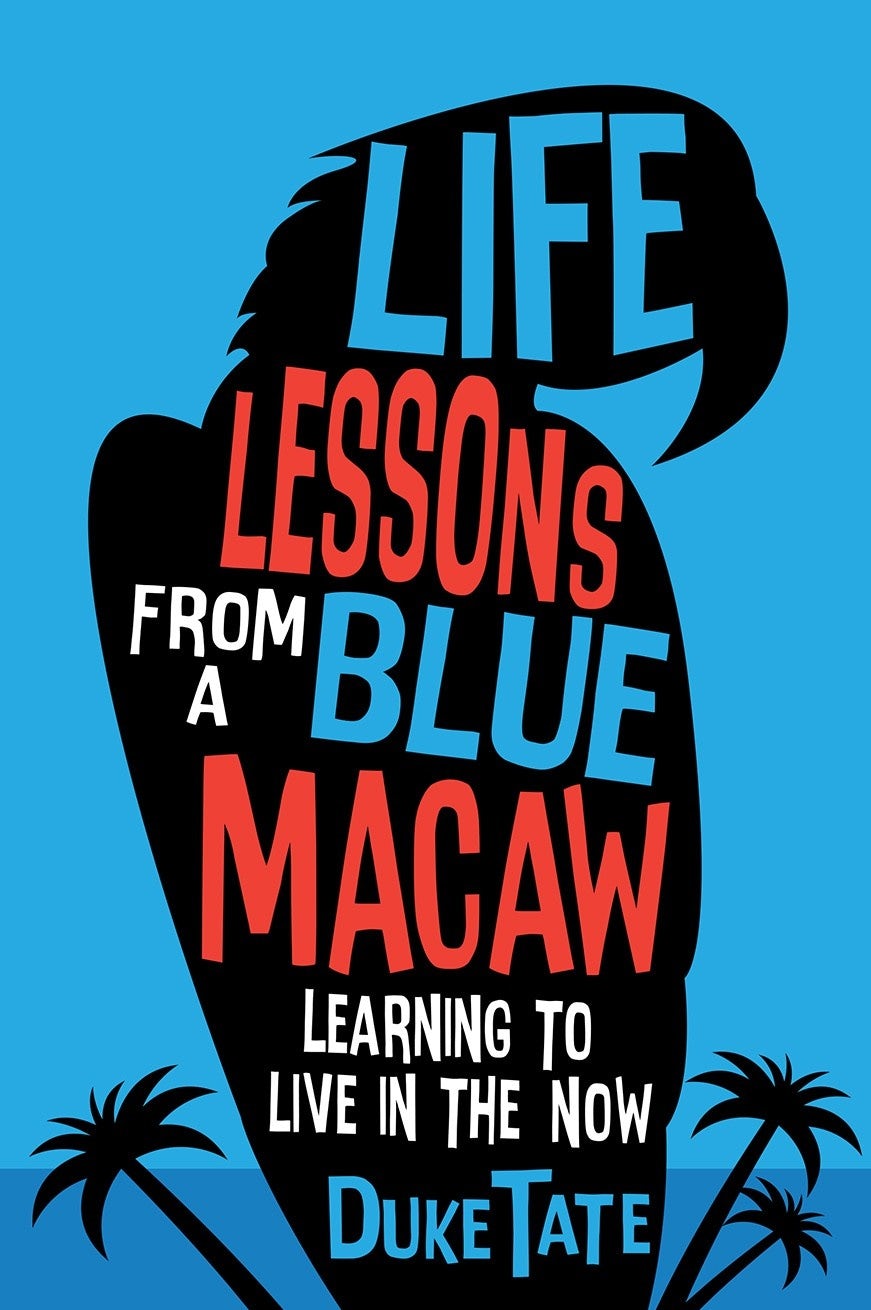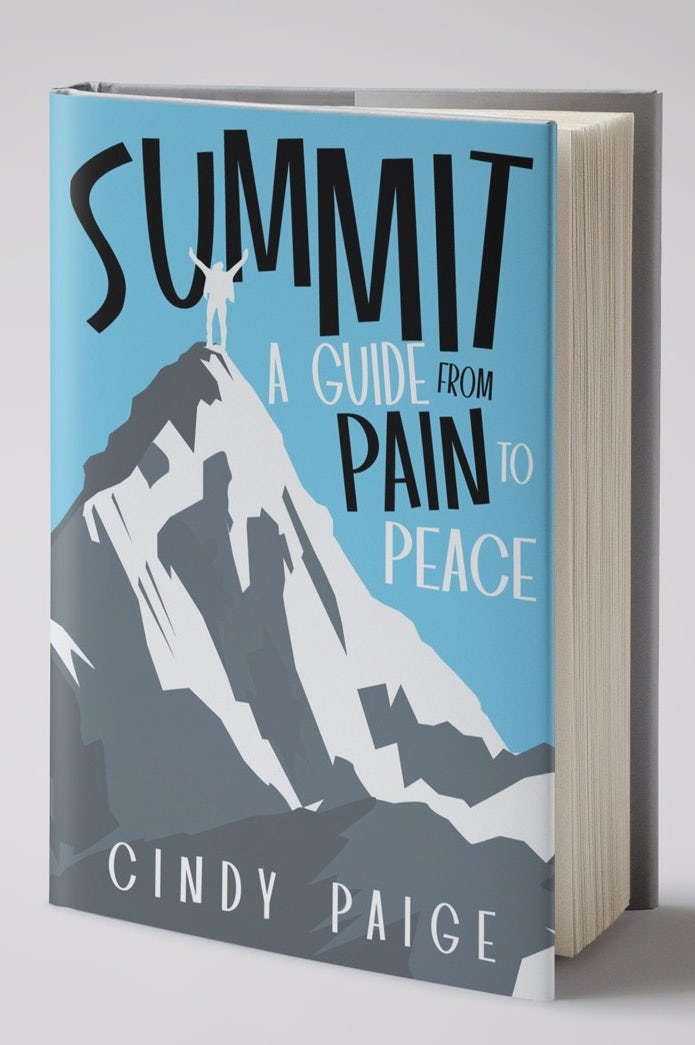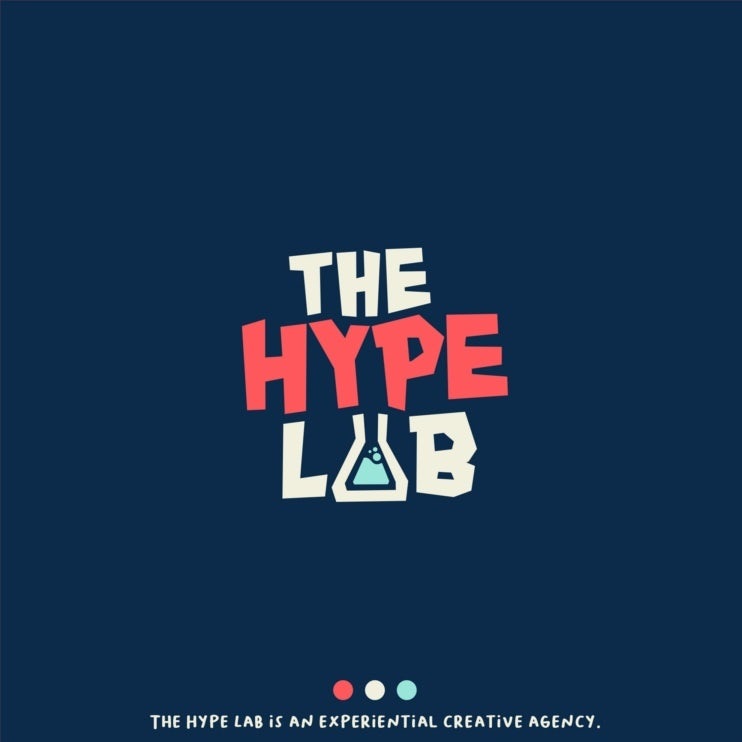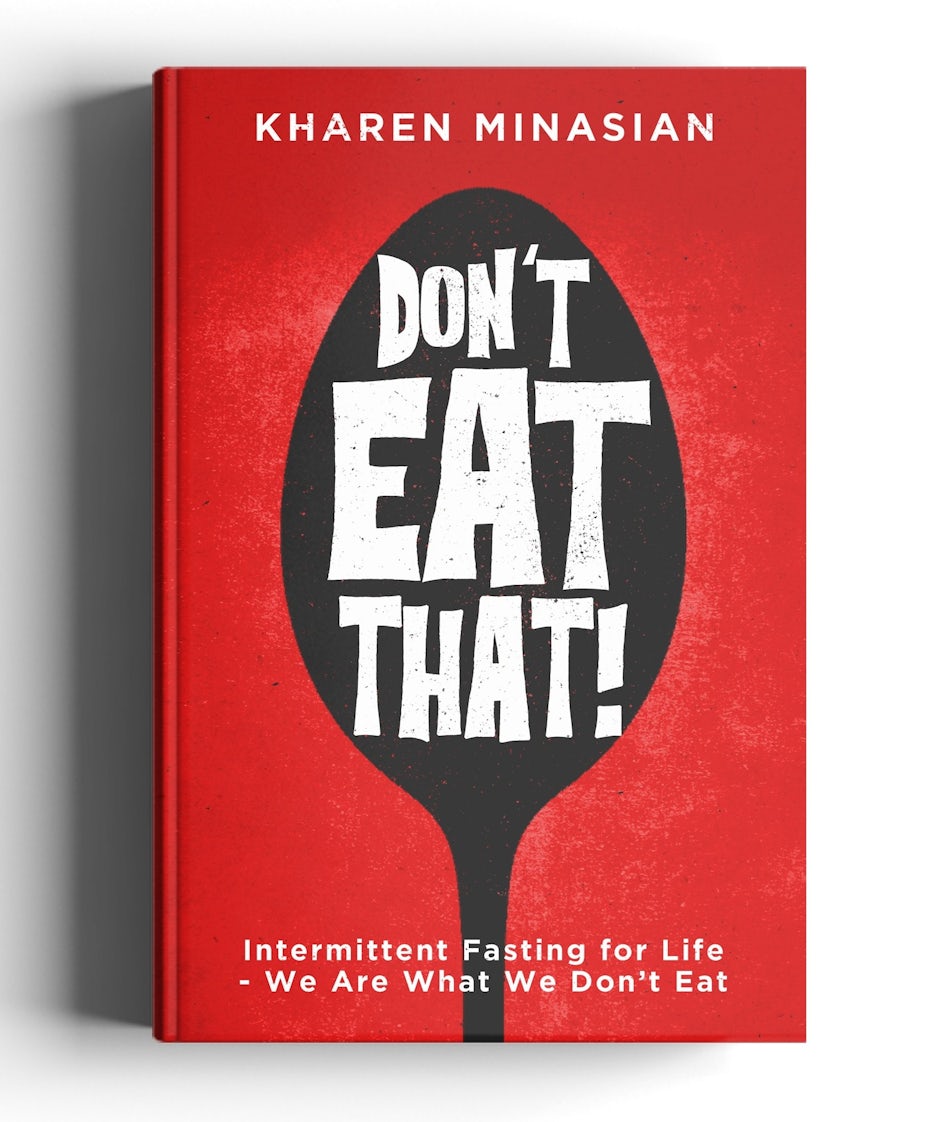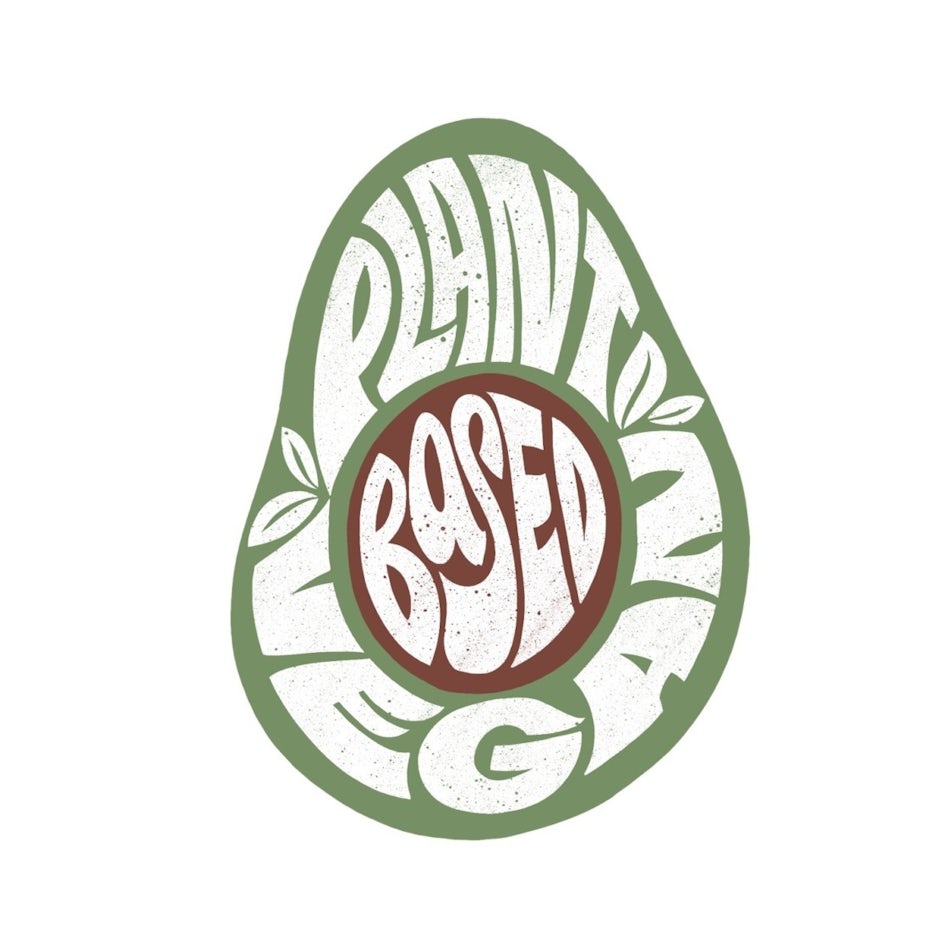
The top 8 font trends for 2021 are:
- Alternating baselines
- Disco revival
- Dynamic lettering
- Extra sharp angles
- Standout letters
- Solid shadows
- Typewriter font evolved
- Rounded block fonts
1. Alternating baselines
All caps text is useful for more than just shouting matches on the internet. In crucial contexts such as titles and brand names, it is often necessary. It makes words feel more important and grownup, but all caps lettering also comes with a price.
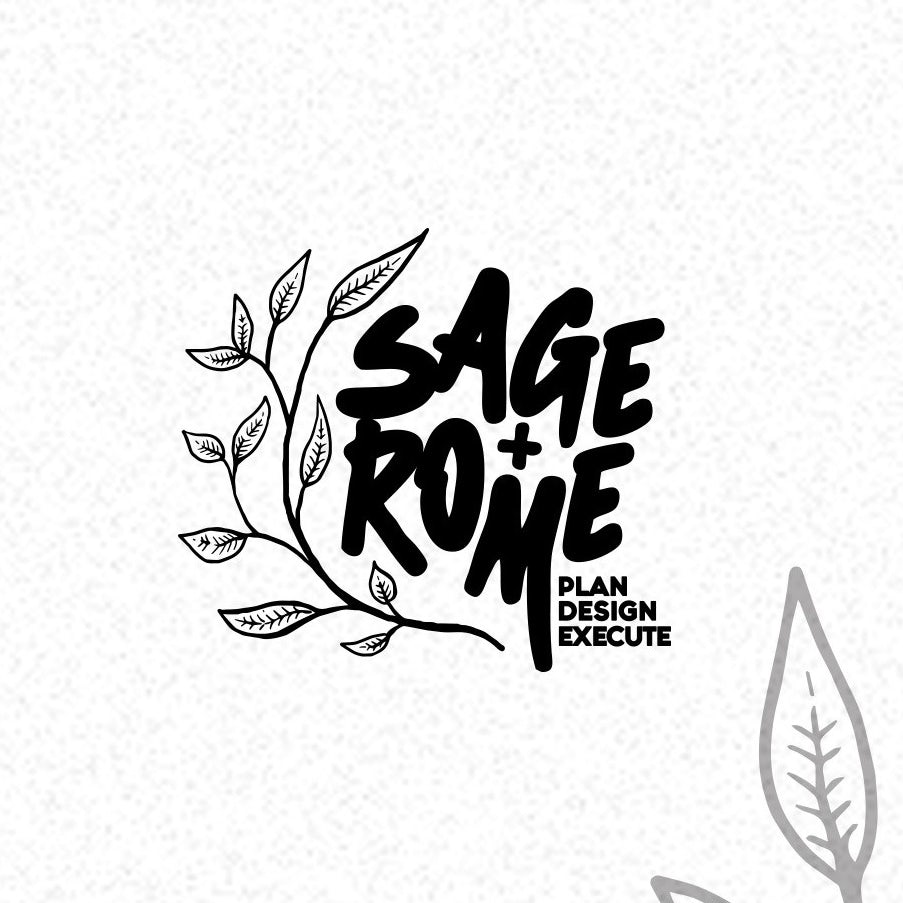
From a design perspective, capitalized words tend to form a boxy shape, which can read as less visually interesting than the height variation provided by lowercase forms. But by taking advantage of uneven sizing, font designers are writing outside the box in 2021.
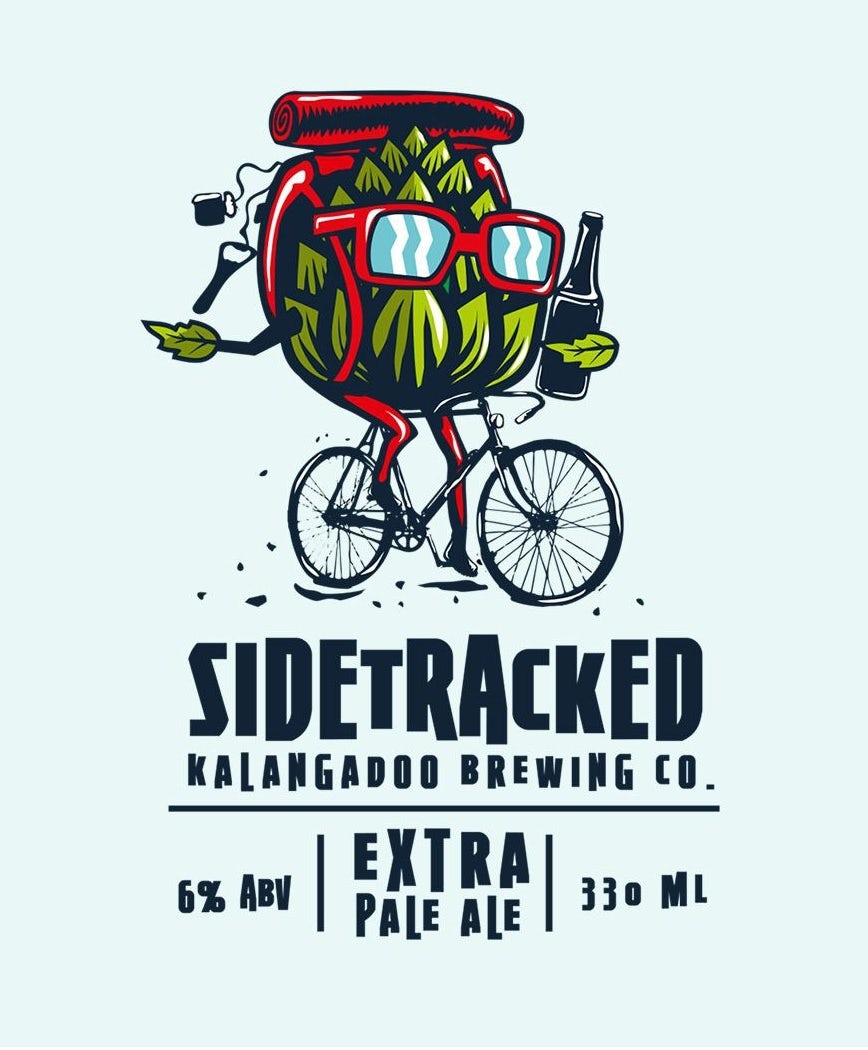
This trend alternates the cap height and baselines of capitalized letters in order to create variety. Designers can also intensify this by changing the thickness between letters and even tilting their axes. The result is letterforms that are full of surprises while maintaining the uniform emphasis of capitalization.
2. Disco revival
If we see the past through rose colored lenses, we see the 70s through rainbow colored ones. The 70s in our collective memory feels like a decade-long party. We imagine the shimmer of disco balls, the strut of platform shoes, and the time-honored dad dance: The Lawnmower. Likewise, 70s style typefaces remain popular for all the festive vibes they convey.
The resurgence of disco fonts comes in the form of multicolored type, thick curves and psychedelic effects. These are typefaces which demand a double take, and they will be the font of choice for groovy themes in 2021.
3. Dynamic lettering
Writers and typographers around the world have always known that words have a life of their own, but this is becoming a tangible reality through 2021’s trend of dynamic lettering. Dynamic letters create the illusion of movement using fluid shapes, textured shading, and action lines—like a mid-motion snapshot.
This trend is an analogue compliment to last year’s kinetic type, reminding us technology was never a necessity for moving art. Dynamic lettering can not only transition well into real animation, it will trick you into thinking it already has. The tradeoff is that dynamic type is more difficult to read, but designers whose projects involve illustrative hand-lettering and large, singular words might easily find themselves swept along with the movement of this trend.
4. Extra sharp angles
Ralph Waldo Emerson famously said, “Words are alive. Cut them and they bleed,” but nobody expected words to cut back. Many fonts in 2021, however, are being designed to accentuate their sharpest edges, proving the old adage that the pen is mightier than the sword.
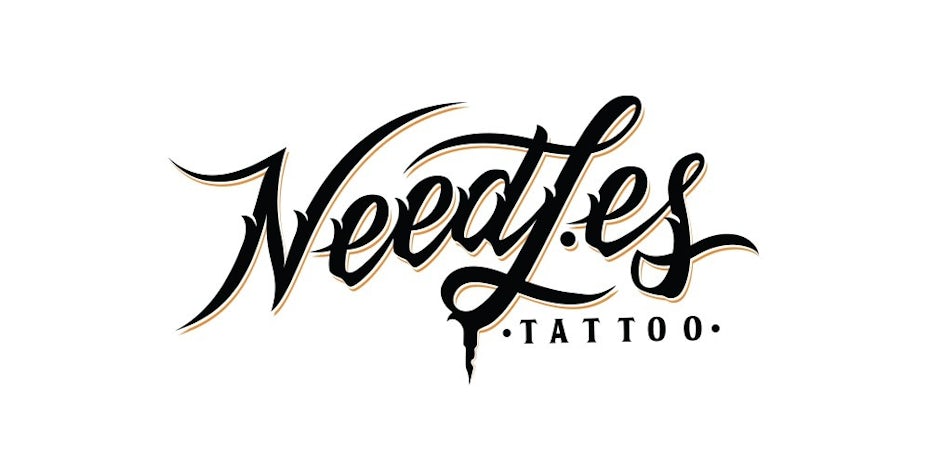
Aside from being notable for the easy attention their extreme angles invite, these are fonts with a literal edge. They feel rebellious and pair well with dark colors and devilish concepts. If your brand is bound for the dark side, you’ll want to make sure you bring something sharp.
5. Standout letters
For better or worse, fonts are designed to fade to the background. While this may come across as dull, it’s what allows letters to read well, putting the meaning of the words ahead of the designer’s ego. Typically, fonts achieve this through a predictably uniform style, but in 2021, many designers are creating wordmarks with individual letters that stand out from the rest.
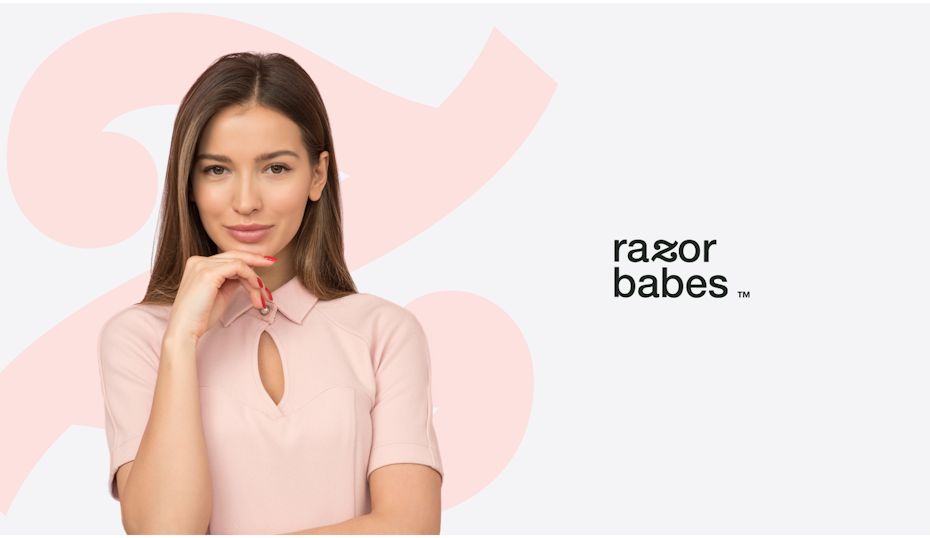
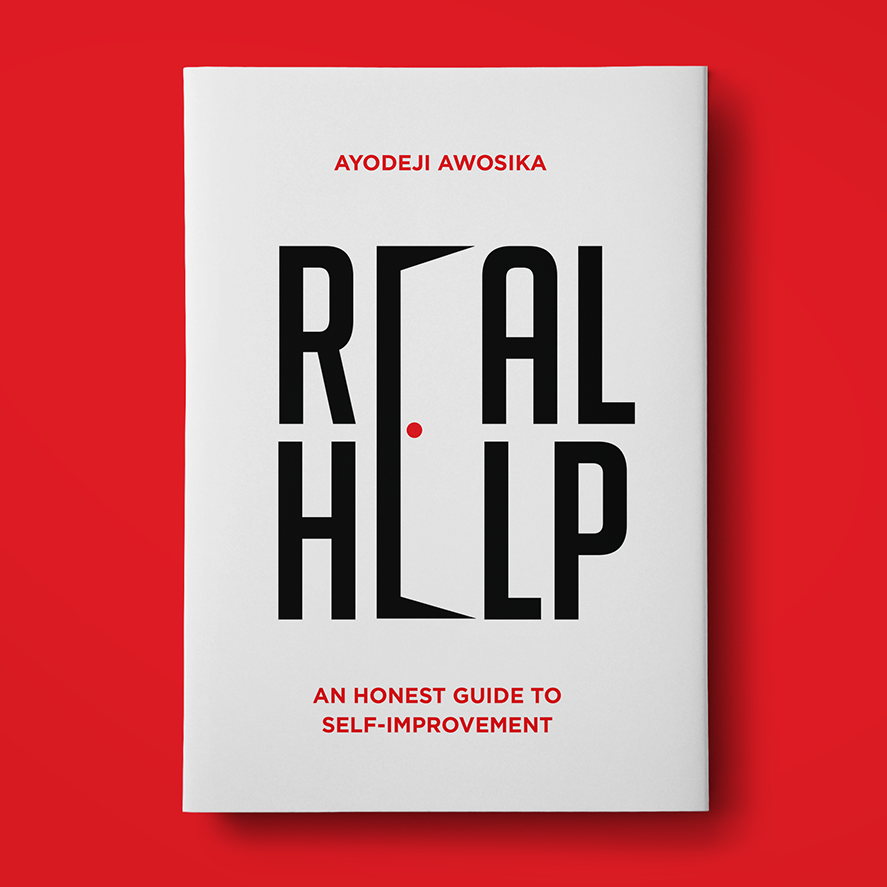
Take for instance goopanic’s curly ‘z’ in the Razor Babes logo or the sneaky lowercase ‘I’ in BlueBerriez’s Fleur Skin logo. These letters manage to break the mold without breaking the reader’s attention. The approach can also be more pronounced for a more emphatic logo as in the ‘I’s abduction in RAHAJOE’s Alien. The end result is a visual focal point for the viewer and a renewed creative license for the designer.
Ready for the biggest font trends 2021?
With the new year nearly upon us, the font trends of 2021 are already spelling out a new destiny for the young decade. Fortunately for us, that destiny appears to be a positive one, as these trends emphasize bright colors, the thrill of disco, and extra special letter variations. With these bright and moving trends, we expect to see fonts take center stage in 2021.